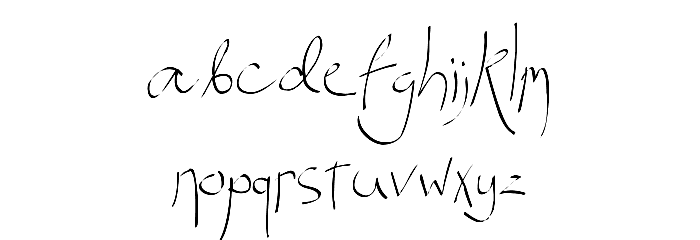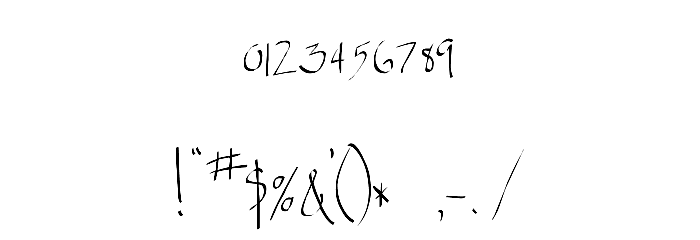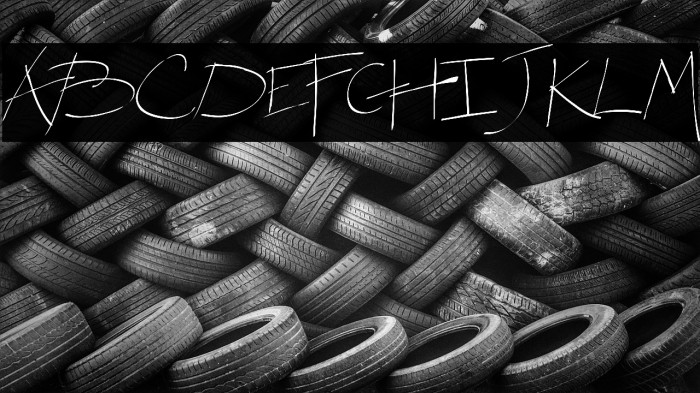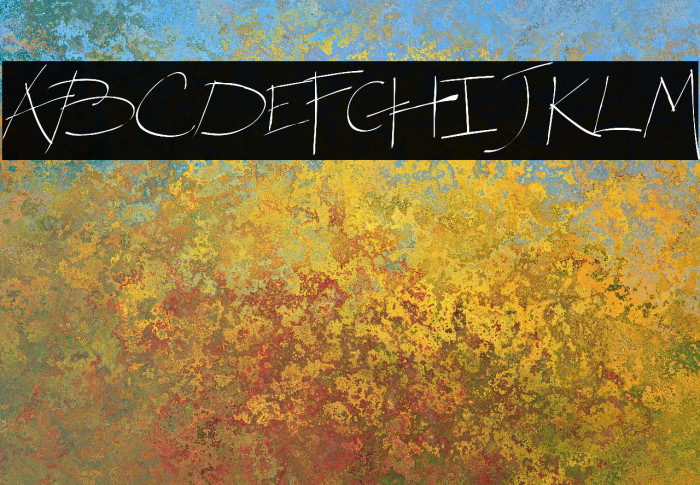
Spitter Font
This font exhibits a unique, handwritten style with a playful and artistic flair. The characters are unevenly weighted, giving it a dynamic and spontaneous appearance. The uppercase letters are tall and slightly slanted, while the lowercase letters maintain a consistent flow with occasional exaggerated curves, particularly noticeable in letters like 'g' and 'j'. The numerals follow the same whimsical style, with varying heights and strokes. Special characters are creatively integrated, maintaining the overall aesthetic. This font is ideal for projects that require a personal touch or an informal, creative vibe.
A playful, handwritten font with dynamic strokes and a creative flair.
- Proposed Projects: Ideal for greeting cards, artistic posters, personal branding, and creative invitations.
- Use Case: Logos, Headlines, Artistic projects